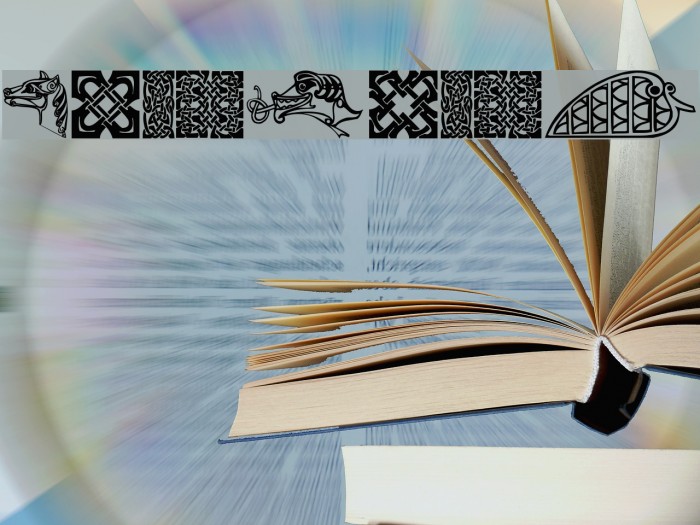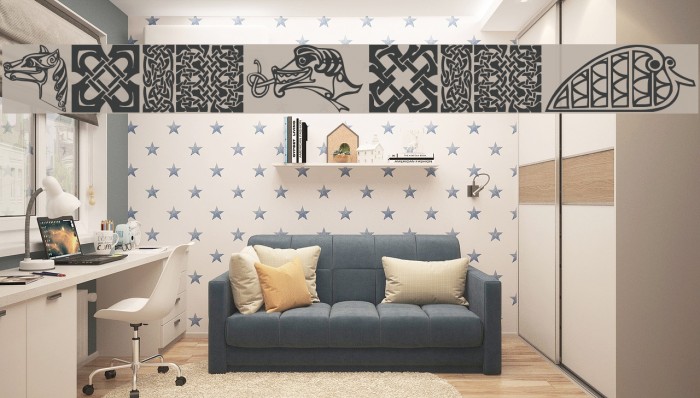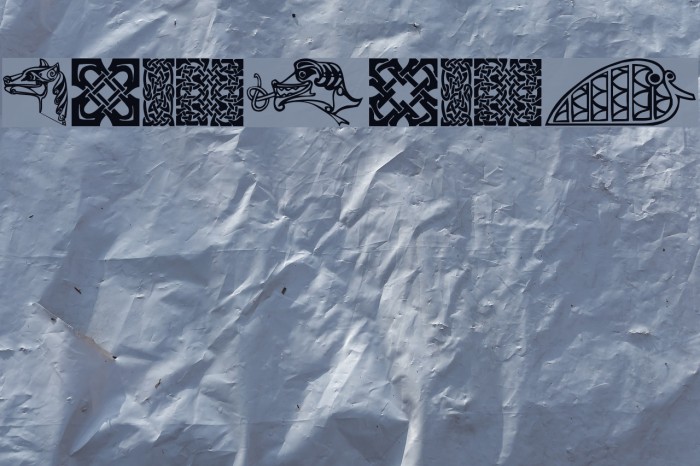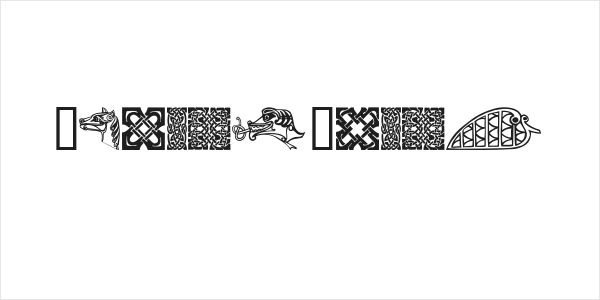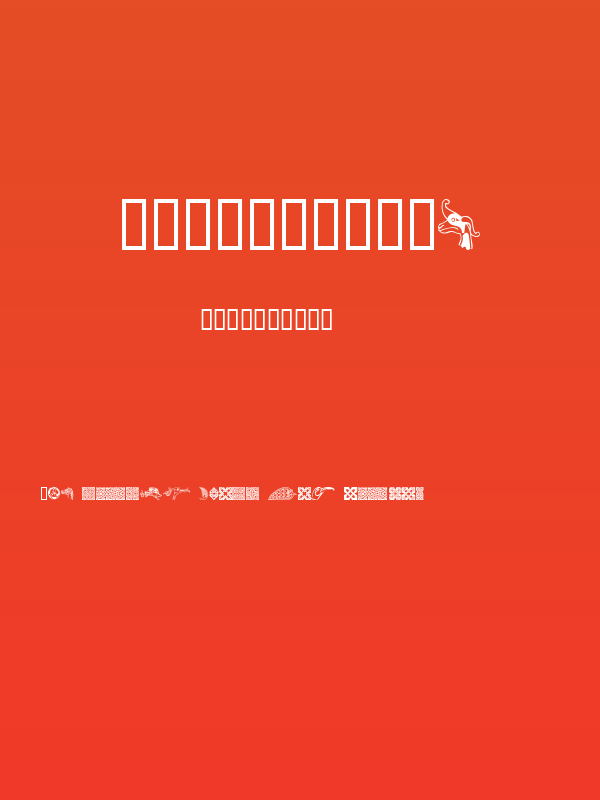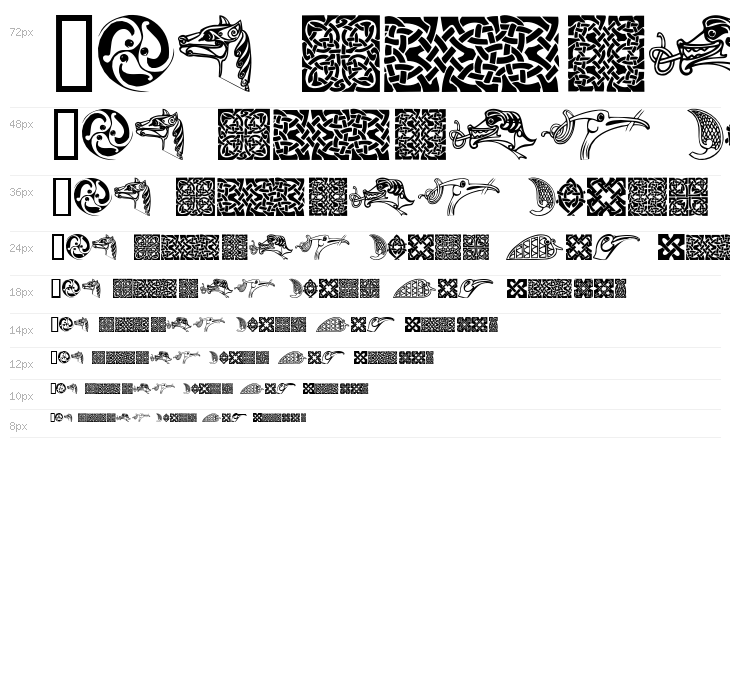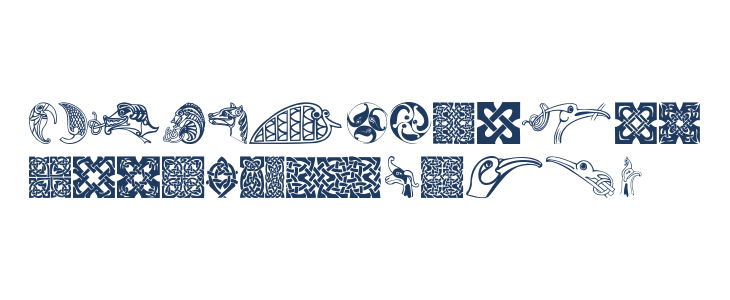
CelticMotif Font
This font is a decorative collection of intricate Celtic motifs and symbols. Each character is represented by a unique design, featuring traditional Celtic knots, animals, and abstract patterns. The designs are highly detailed, showcasing the complexity and artistry typical of Celtic art. The motifs are enclosed within rectangular frames, giving them a structured appearance. This font does not contain standard alphanumeric characters but instead focuses on ornamental and symbolic representations.
| Use Case | Logos, Decorative elements, Themed designs |
| Proposed Projects | Ideal for projects requiring a Celtic theme, such as invitations, posters, or themed branding materials. It can also be used in artistic projects or as decorative elements in design work. |